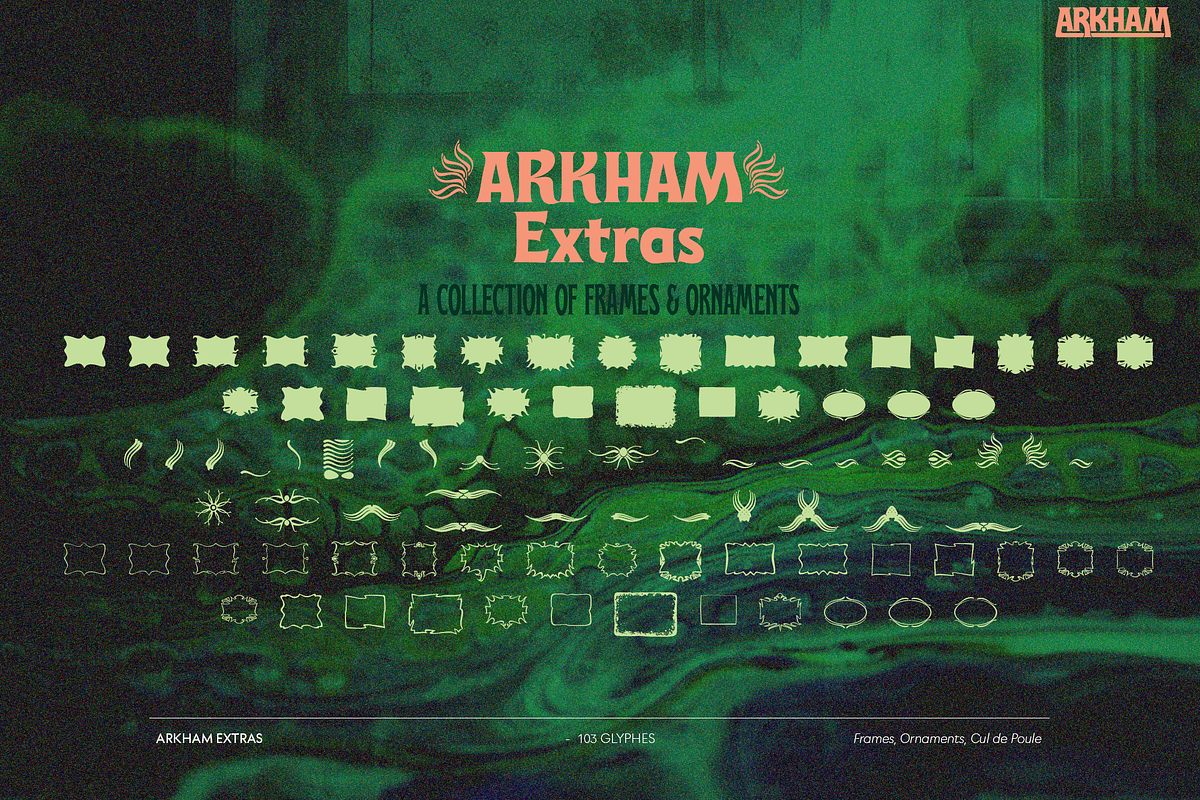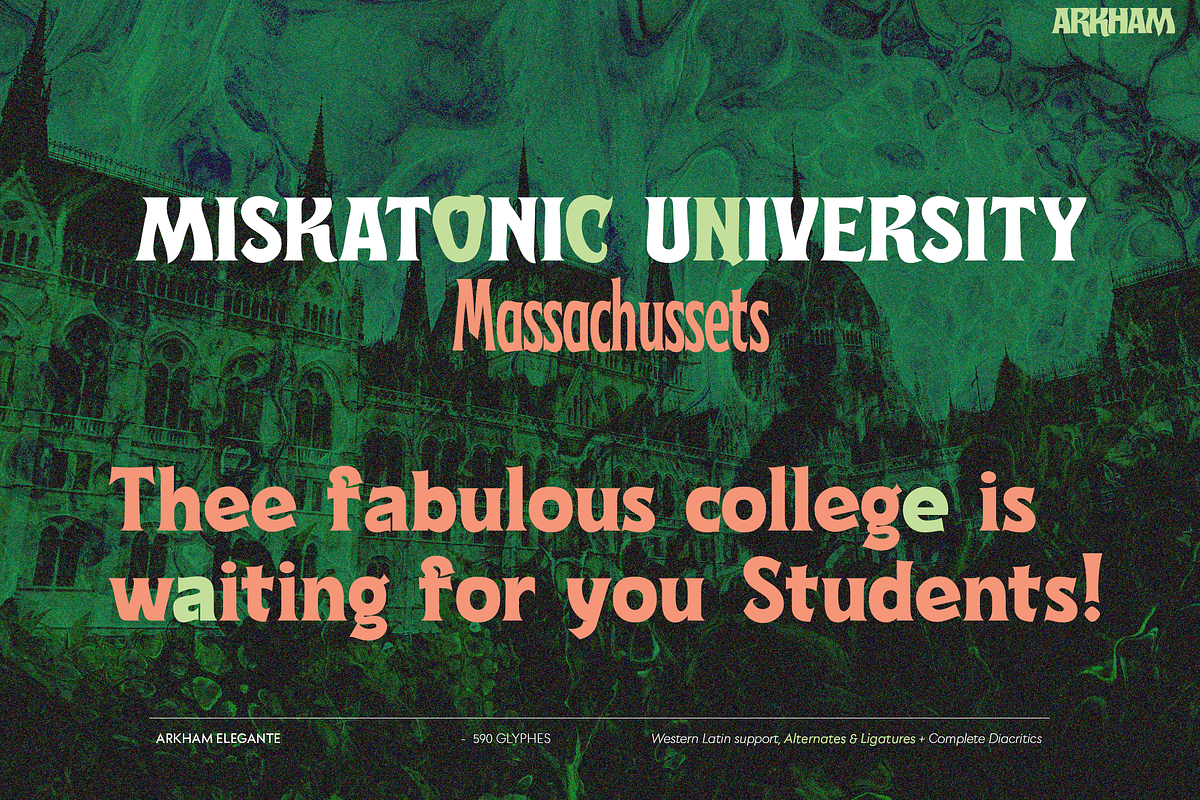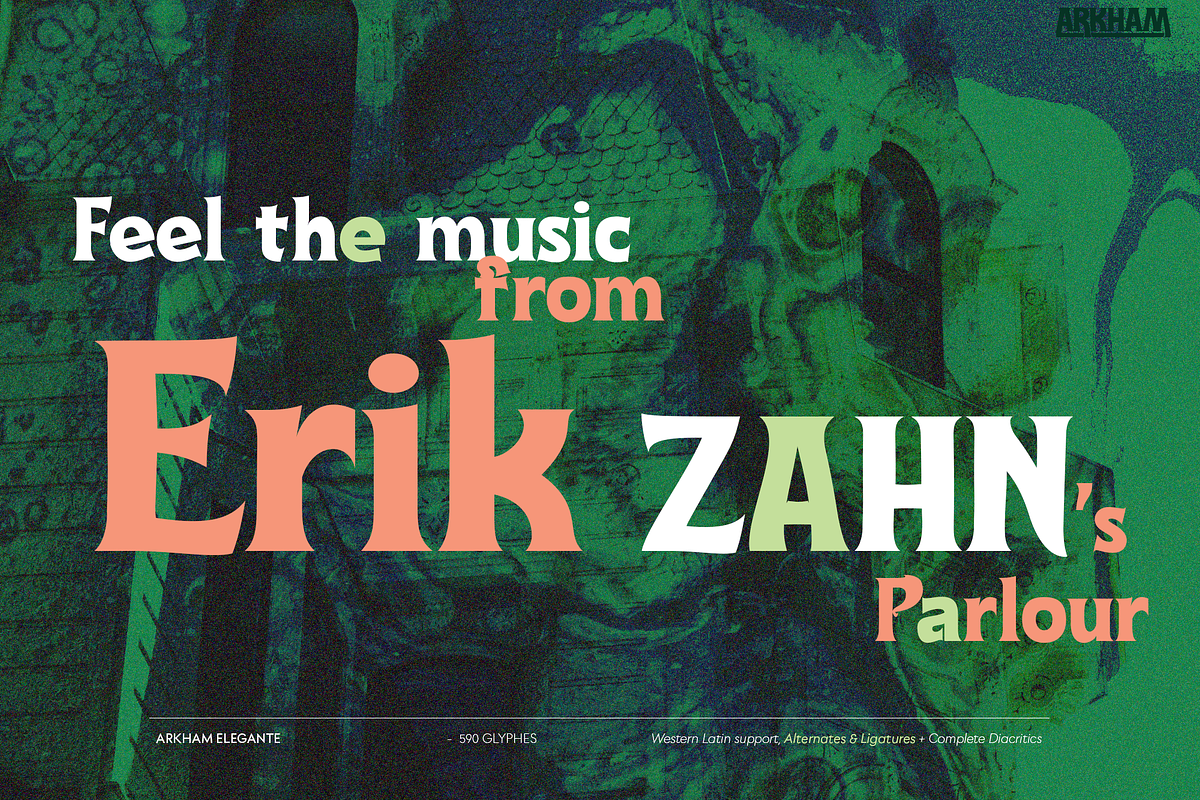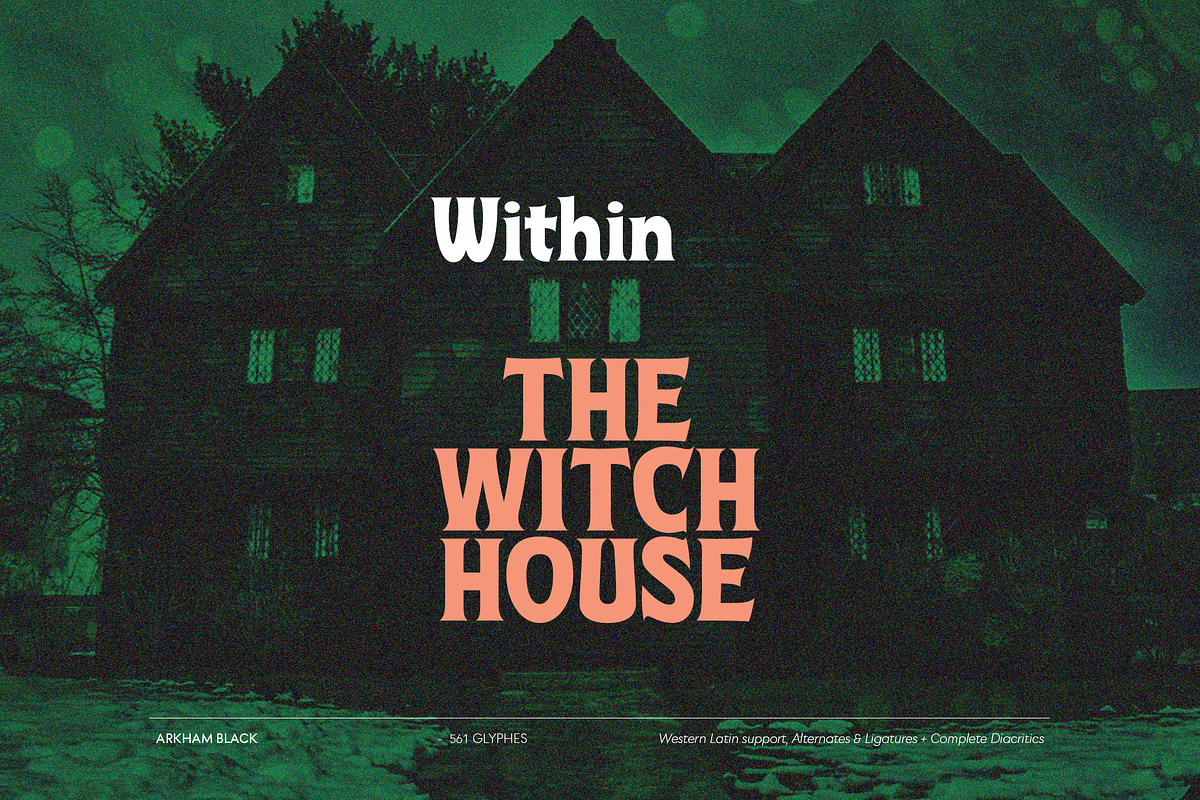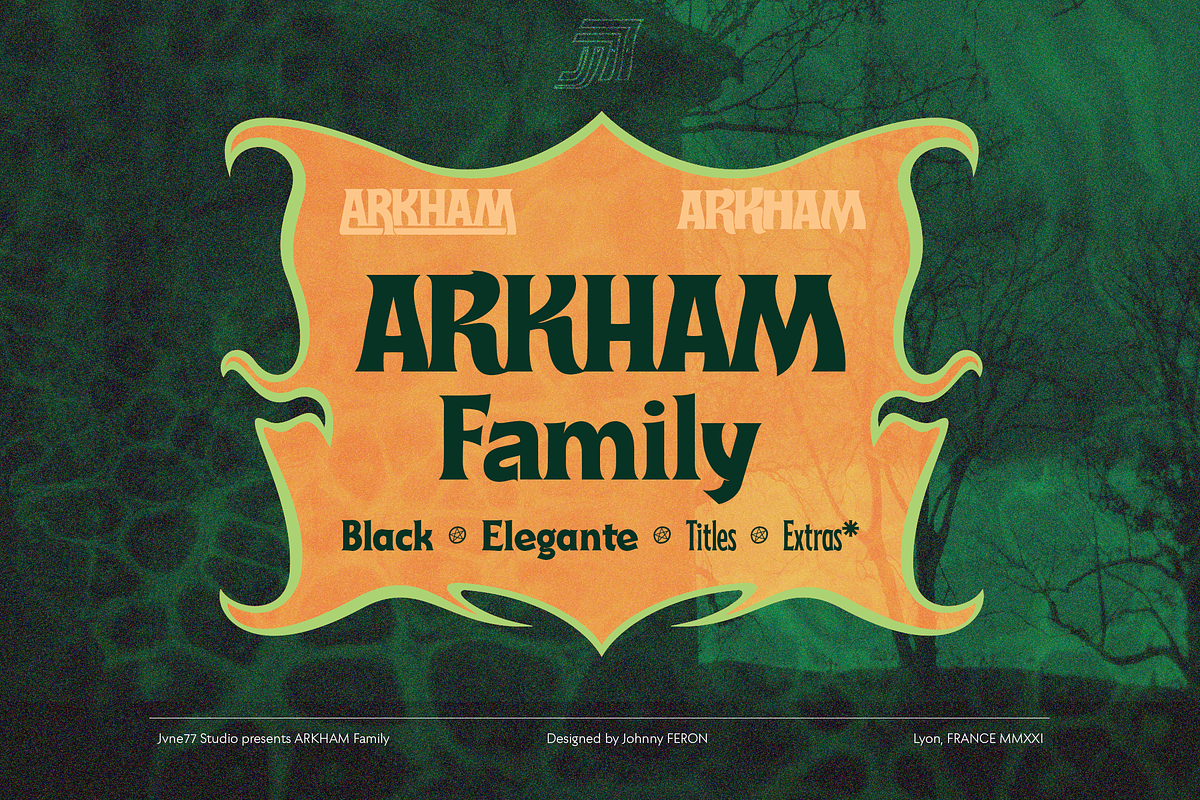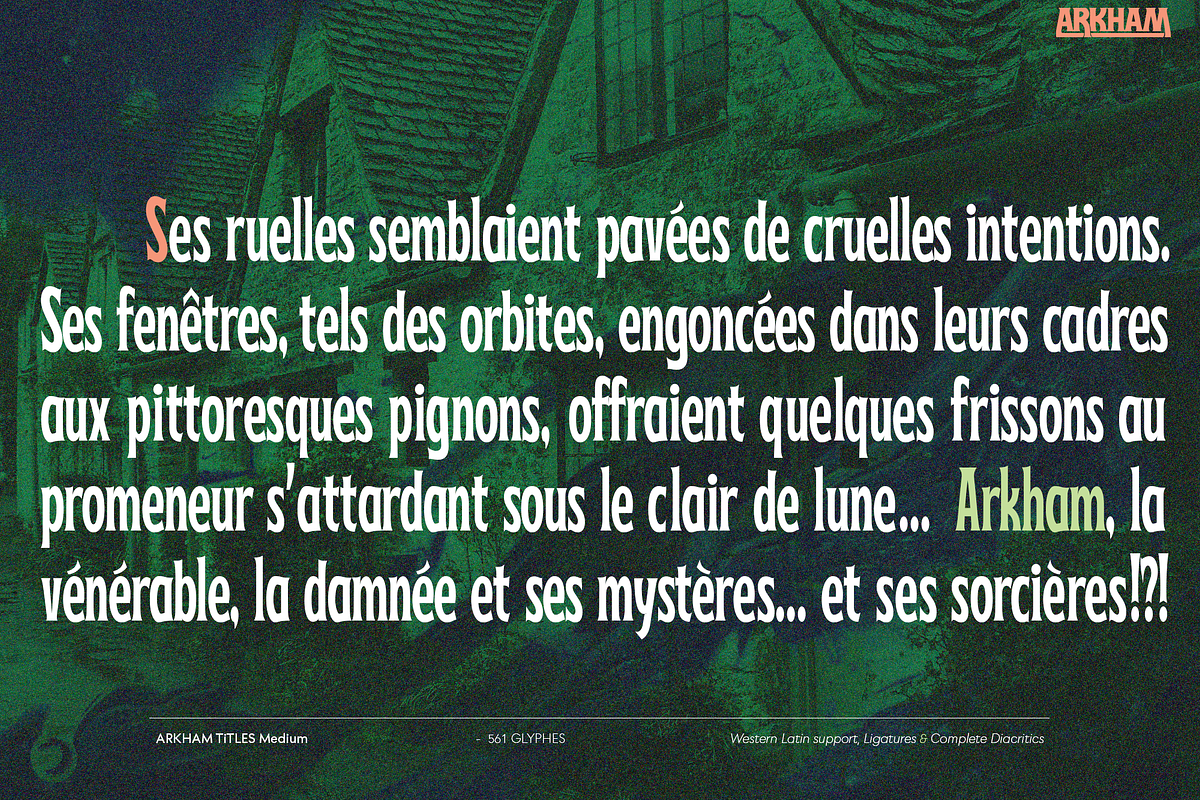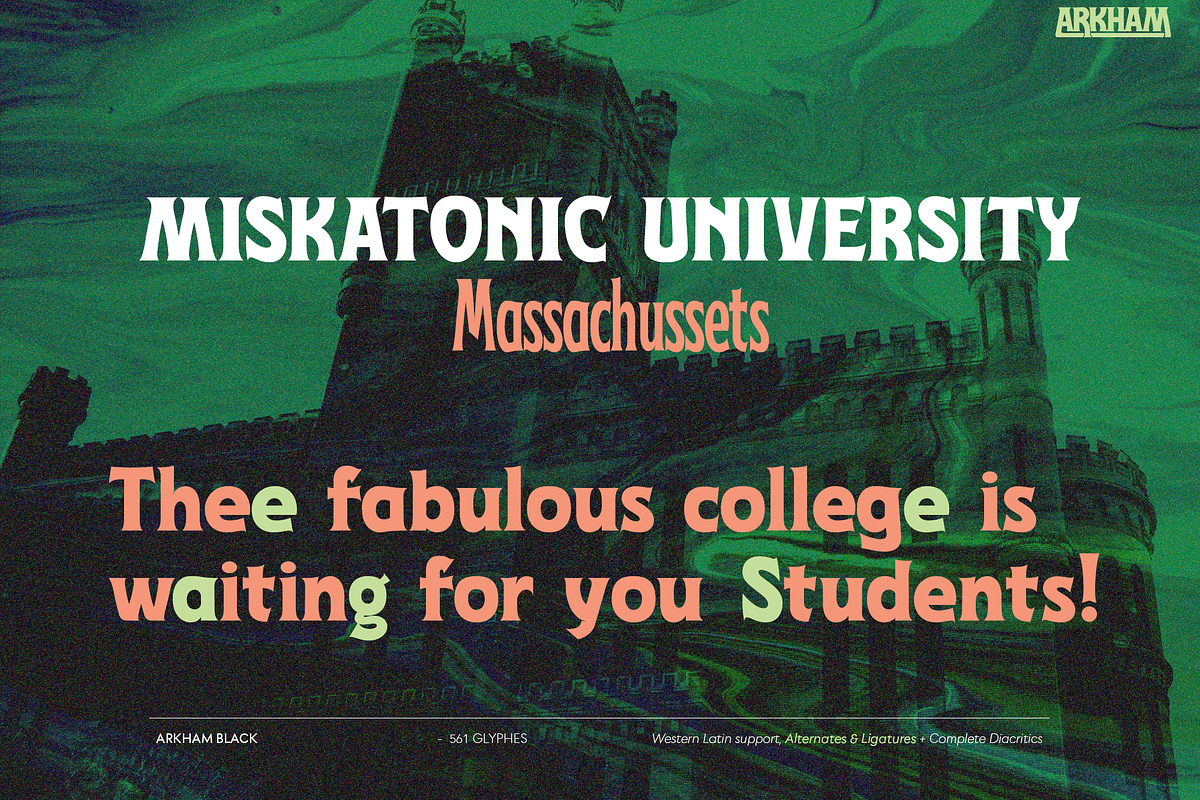
ARKHAM Display Family + Extras
ARKHAM Display Family + Extras Inspired by the works of Howard Philips Lovecraft (1890-1936), and the city of Arkham lying abroad the Miskatonic River... witth all those witchcrafts secrecy and the infamous Necronomicon. The Elder Ones and the mighty Cthulhu, who lies and not dies within the dephts of the ocean in R'lyeh he's awaiting... arf, anyway this font will well set for posters, detective stories or horror books, pulps and others...
Full western latin language with most diacritics and numbers
- ARKHAM Black (More formal display) 560 glyphes
- ARKHAM Elegante (for a creepiest rendition) 590 glyphes
- ARKHAM Titles (as its name do not tells, for credits, or simple text) 560 glyphes
- ARKHAM Extras (Embellish your work with this cool collection of frames and ornaments) 103 glyphes